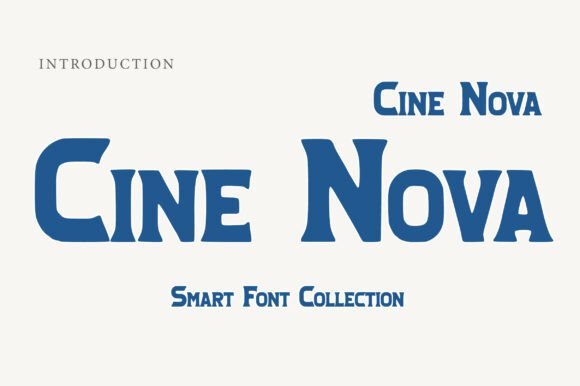
The Silver Screen’s New Star: Cine Nova Font
Do you ever get that rush of excitement when you stumble upon an old movie poster or a classic film title sequence? For many of us, it’s the magic of the movies that sparks our imagination and creativity. And what’s behind that timeless charm? The perfect blend of elegance, impact, and a dash of nostalgia. That’s where the Cine Nova Font comes in – a bold, cinematic display serif font that embodies the essence of vintage film posters.
With its strong, high-contrast letterforms, dramatic curves, and slightly flared serifs, the Cine Nova Font is the perfect choice for designers looking to add a touch of luxury and sophistication to their projects. Whether you’re working on a film poster, a high-end magazine, or a classic movie credit sequence, this font is sure to demand attention and leave a lasting impression. By incorporating the Cine Nova Font into your designs, you’ll be able to create a timeless and premium look that’s sure to captivate your audience.
- Font Size: The font family includes 6 font weights (Thin, Light, Regular, Medium, Bold, Black), providing flexibility for different design requirements.
- Unique Characteristics: The font features a unique blend of modern and vintage elements, with distinctive letterforms and subtle texture, giving it a distinctive aesthetic.
- Language Support: Cine Nova Font supports a wide range of languages, including Latin, Cyrillic, and Greek alphabets, making it suitable for global design projects.
Cine Nova Font Review
Cine Nova Font is a beautiful, elegant serif font that’s perfect for those looking to add a touch of sophistication to their designs. ✨ One of the standout features of this font is its versatility – it works well in both display and text settings, making it a great choice for posters, flyers, and even body text.
Here are some of the key features that make Cine Nova Font a great choice:
- ✨ Elegant, refined aesthetic
- ✨ Versatile font that works well in display and text settings
- ✨ Supports a wide range of languages
- ✨ Includes a range of weights and styles
However, there are a few limitations to be aware of:
- ⚠️ Limited OpenType features, which may limit its use in advanced typography applications
- ⚠️ May not be as legible at very small font sizes
Overall, Cine Nova Font is a solid choice for designers looking for a elegant, sophisticated font. While it may have some limitations, its versatility and refined aesthetic make it a great addition to any design toolkit.
Some tips for getting the most out of Cine Nova Font include:
- Use it for titles and headings to add a touch of elegance.
- Pair it with bold fonts for a striking contrast.
- Use it for invitations, posters, and other promotional materials.